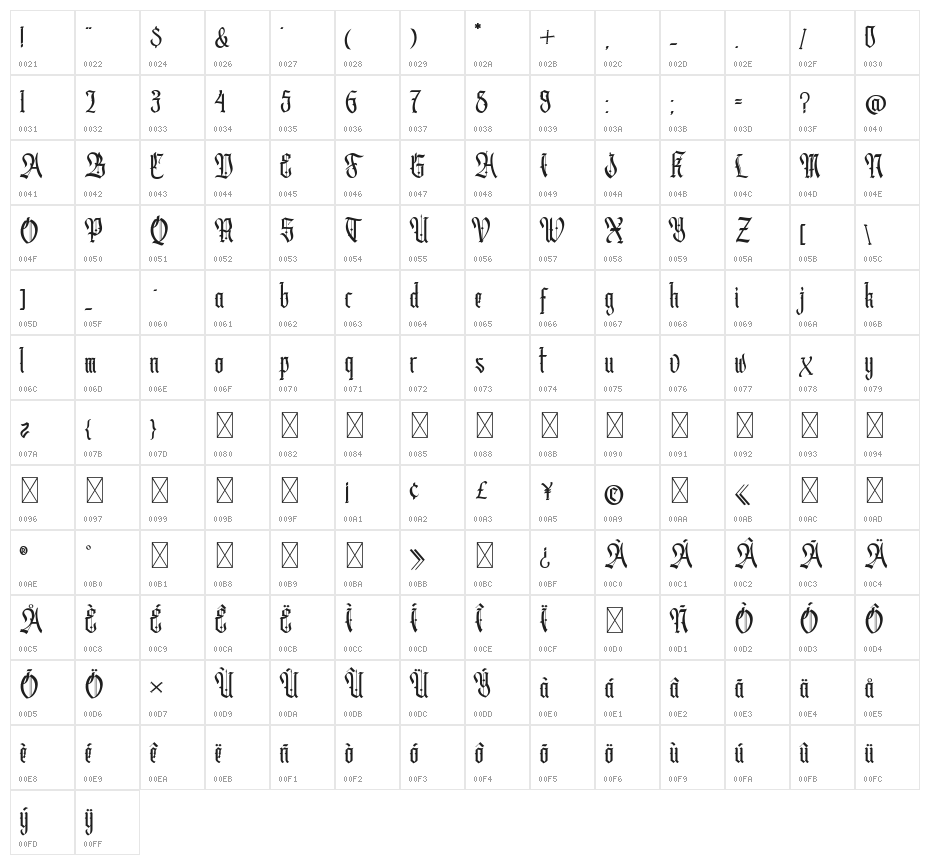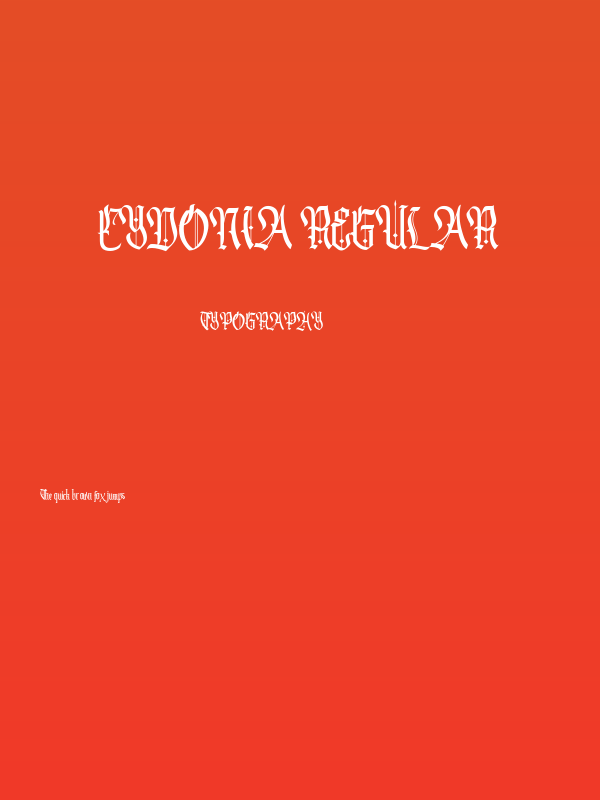
Cydonia Regular Font
Cydonia Regular Description
This font features a striking and intricate design reminiscent of traditional Blackletter styles. The characters are bold and ornate, with sharp, angular lines and decorative flourishes that give it a historic and gothic appearance. The uppercase letters are particularly elaborate, with extended serifs and unique crossbars, while the lowercase letters maintain a consistent style with slightly less ornamentation. The numbers and special characters follow the same aesthetic, ensuring a cohesive look across all glyphs. This font's dramatic and artistic flair makes it ideal for projects that require a touch of elegance and tradition.
| Overall Style | Gothic, Historic, Decorative |
| Use Case | Headlines, Logos, Decorative text |
| Proposed Projects | Ideal for use in certificates, invitations, book covers, posters, and branding that requires a historic or gothic touch. |